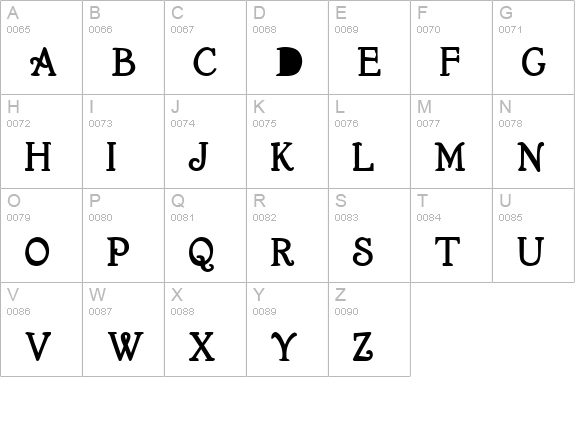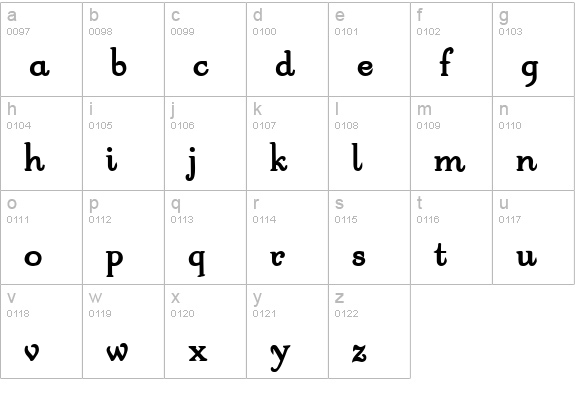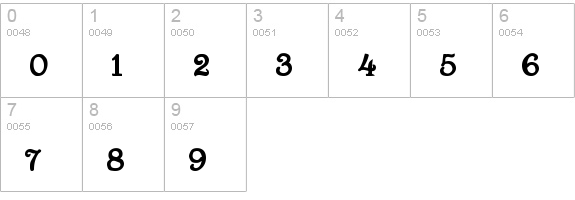
Garton Regular is the standard, neutral variant in the Garton typeface family \xE2\x80\x94 well suited to general body text, paragraphs, and standard typographic work.
Garton Regular font exudes a timeless elegance and sophistication that is sure to elevate any design project. Its clean lines and classic serif style make it perfect for formal documents, invitations, and branding materials. The versatility of Garton Regular allows it to be used in a variety of contexts, from traditional to modern settings. What sets Garton Regular apart is its exceptional legibility and readability, making it a reliable choice for both print and digital applications. The balanced letterforms and generous spacing ensure that your message is clear and easy to read, no matter the size or medium. And the best part? Garton Regular is available for free download at FontsMarket.com. This means you can add this elegant font to your collection without breaking the bank. Don't miss out on the opportunity to enhance your designs with the timeless beauty of Garton Regular. Download it today and see the difference it can make in your projects.